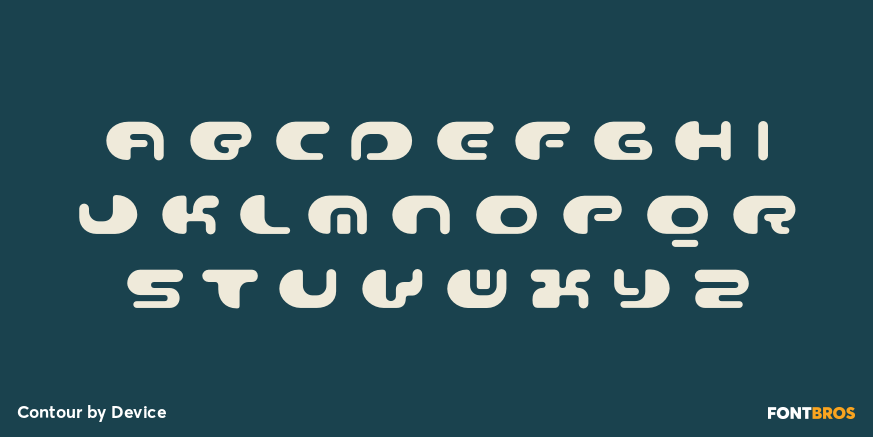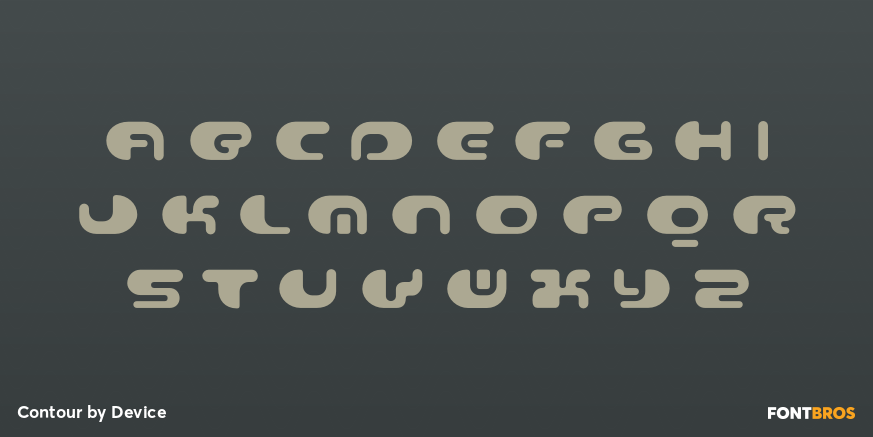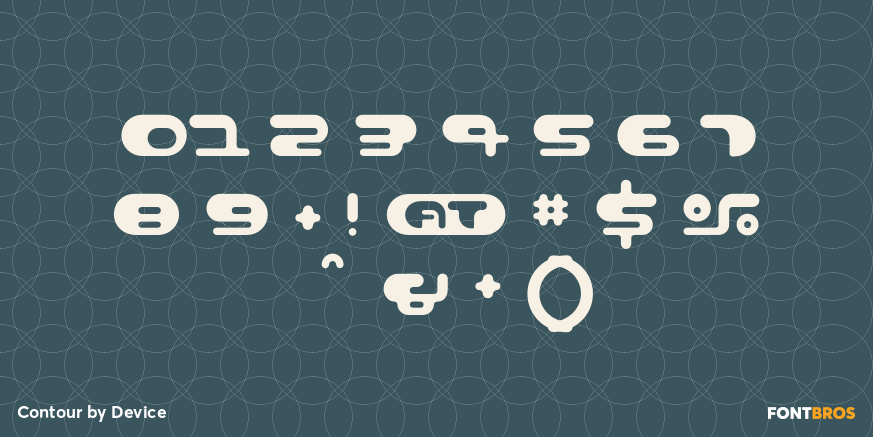
Contour
Font Family by Device
Contour is a futuristic sans serif family with a crisp, graphic presence. Its clean geometry and alternate treatments give it a sharp, forward-looking feel that works especially well when you want type to look sleek, technical, or visually striking.
This family includes 4 styles: Contour Regular, Contour Italic, Contour Outline, and Contour Shaded. That mix makes it easy to move from solid headline settings to more dimensional, display-driven compositions while keeping a consistent voice.
Designed by Device, Contour is a natural fit for posters, branding, logos, packaging, apparel graphics, and other display work that benefits from a modern, futuristic edge.